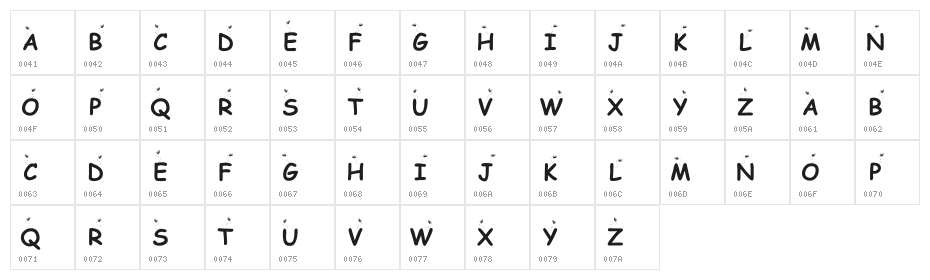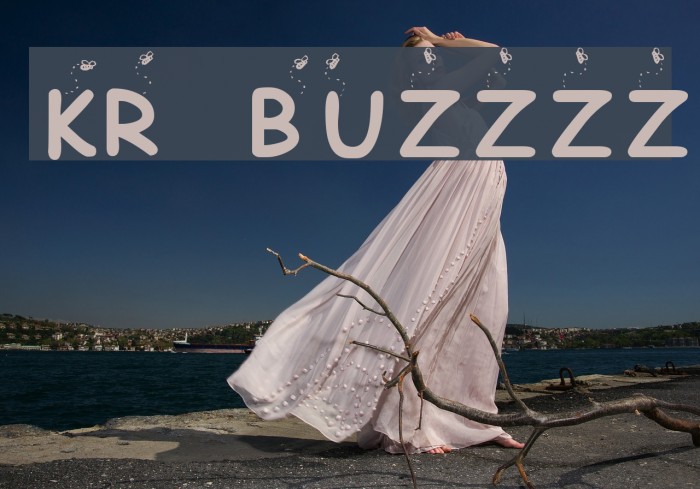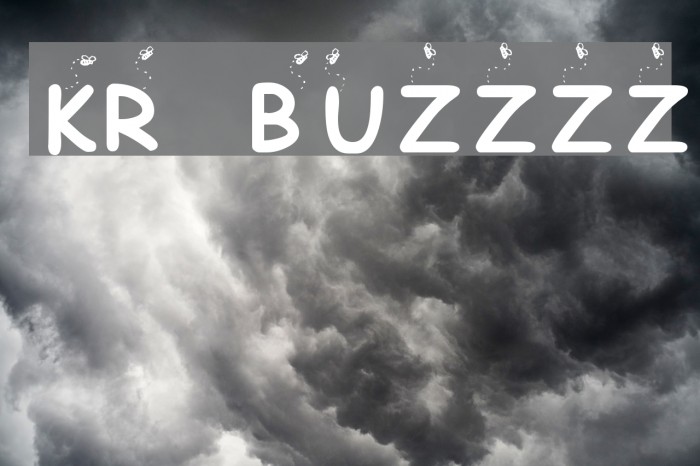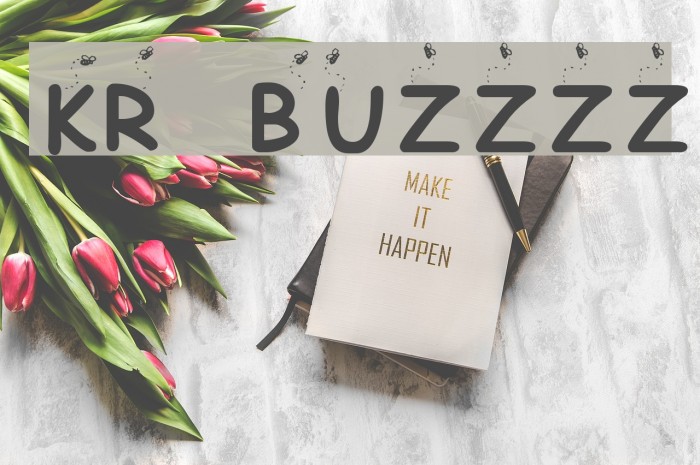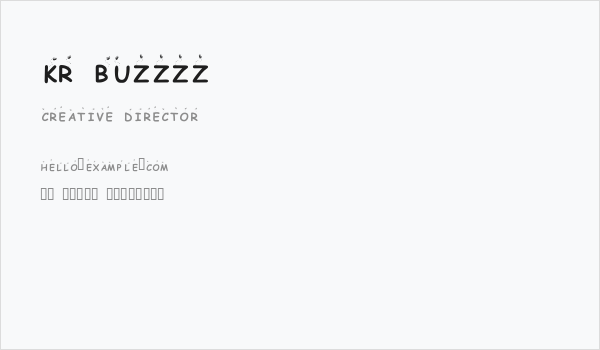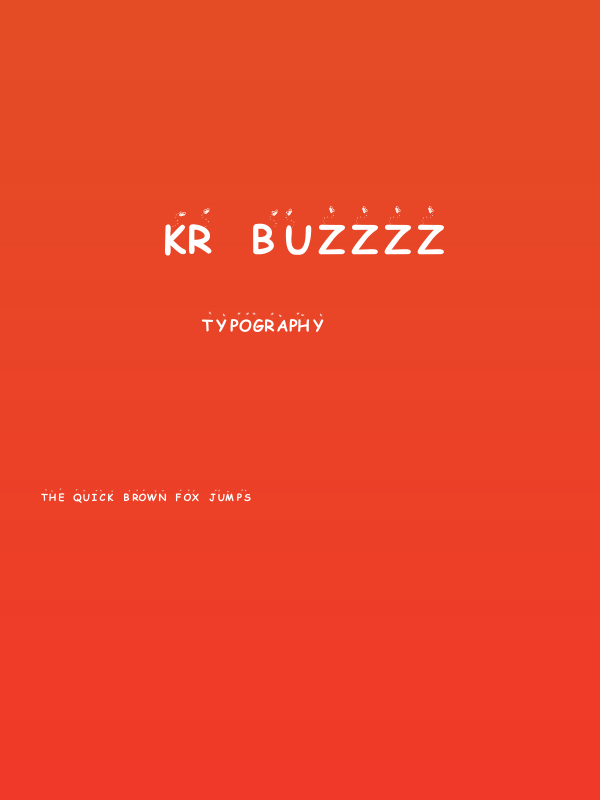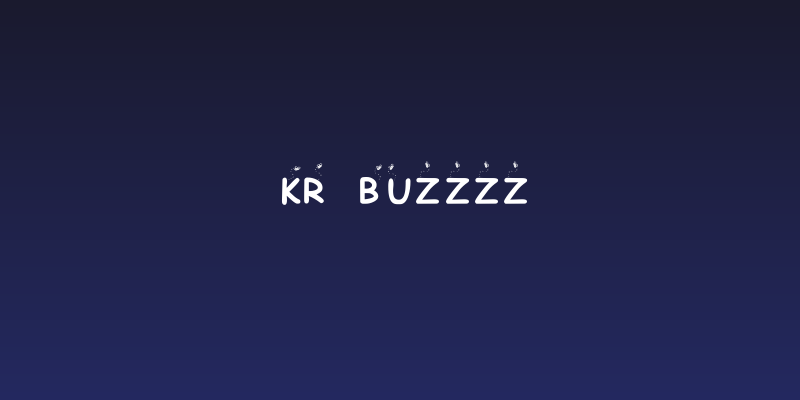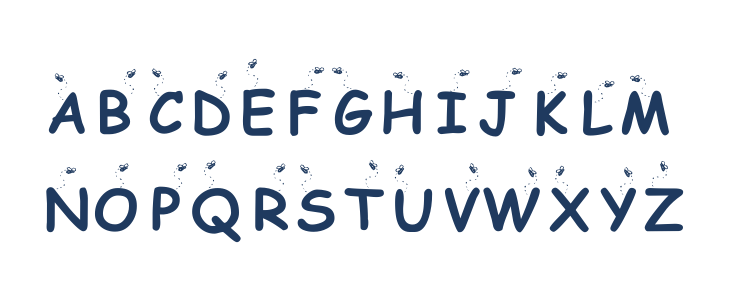
KR Buzzzz Font
KR Buzzzz Description
This playful and whimsical font features a unique design with small bee illustrations hovering above each character, adding a lively and fun element. The letters are bold and rounded, giving them a friendly and approachable appearance. The uppercase and lowercase letters maintain a consistent style, with smooth curves and a slightly informal touch. The numbers and special characters are designed to match the overall playful theme, making this font ideal for creative and lighthearted projects.
| Proposed Projects | Ideal for children's books, playful branding, greeting cards, and educational materials. |